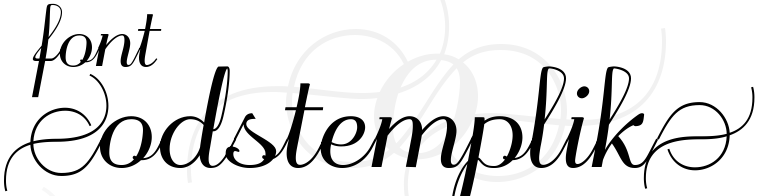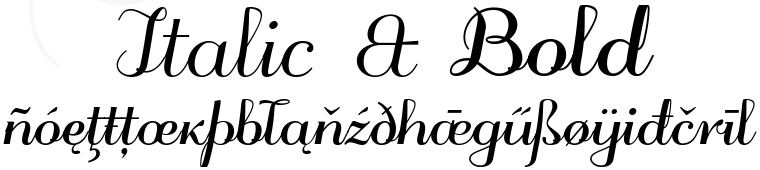
Font Odstemplik made by gluk Font Odstemplik with ligatures Font Odstemplik - bold and italic
Font Odstem­p­lik (in .ttf and .otf for­mat) try to be a Type­face between Italic and Script, and have Open­Type fea­tures: con­tex­tual Alter­nates, Ini­tial forms, Ter­mi­nal Forms, Stan­dard Lig­a­tures and Discre­tionary Lig­a­tures. Ver­sion 0.70 have OdstemplikBold.